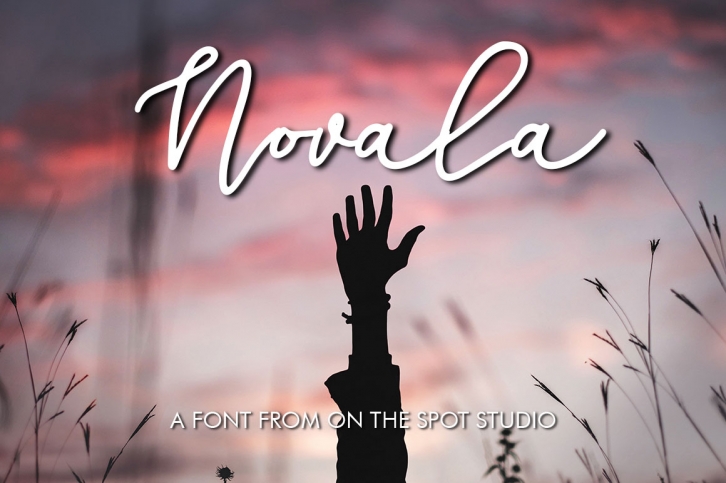
Novala is a beautiful font that was designed by On The Spot Studio. It's a great choice for designers and creatives who need such a font. It was released on November 30, 2017 and the file size is 11.22 MB. Novala may give a more youthful, expressive and casual look to your project. It is a very beautiful, refined, elegant, and high-quality font.